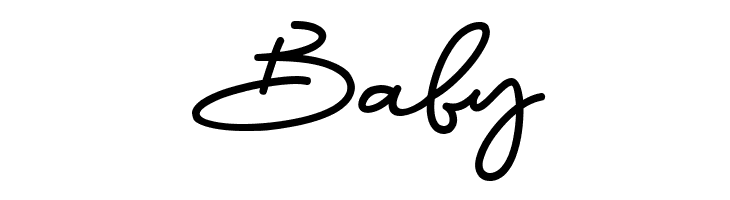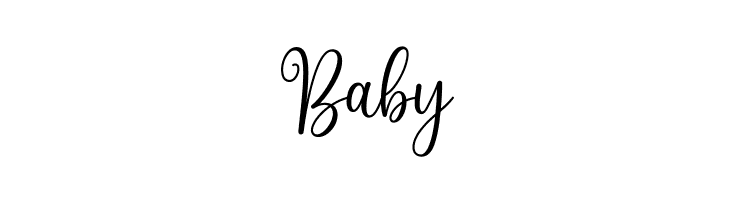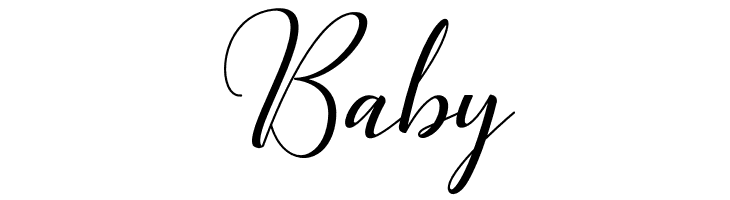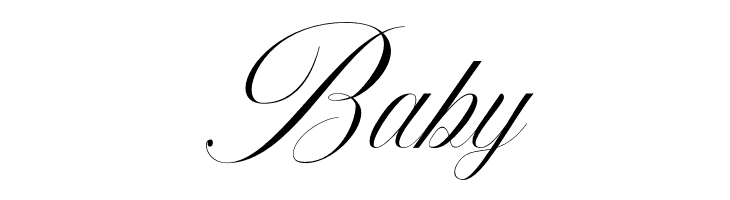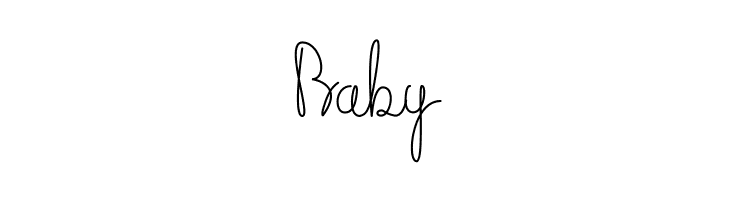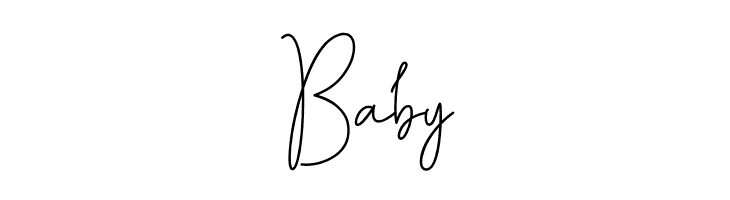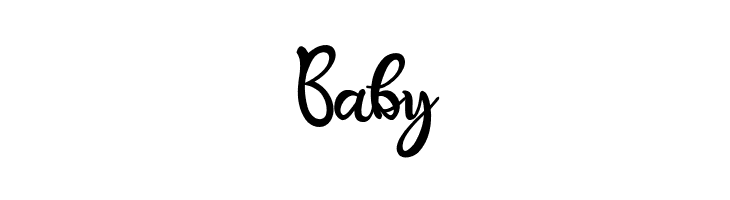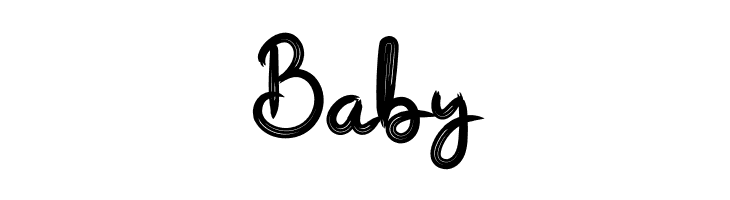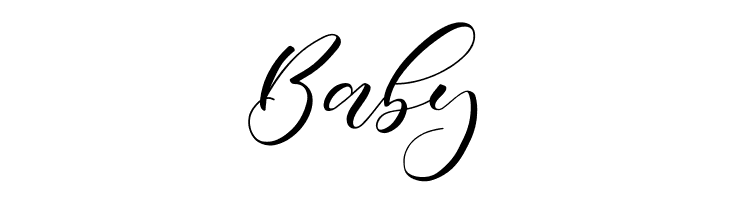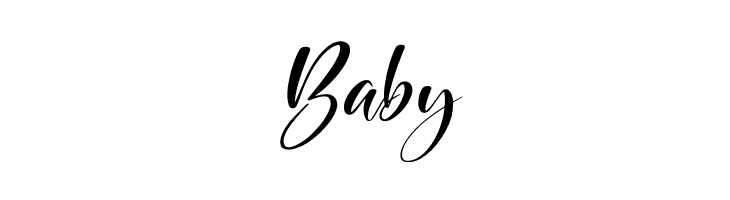
• BeautifulRegular
A bold, brush-style font with a playful and dynamic hand-drawn appearance.
• BeautifulScript-Light
A graceful script font with flowing, interconnected letters and elegant flourishes.
• BeautifulScript-Light
A graceful and elegant script font with flowing, interconnected letters.
• BeautifulScript-script
A sophisticated script font with flowing, interconnected characters and high contrast strokes.
• BeautifulThangs
A playful, casual handwritten font with irregular strokes and a slightly slanted appearance.
• Beautimy
An elegant, flowing script font with intricate swirls and loops.
• Beautimy
An elegant, flowing script font with ornate swirls and loops.
• Beautique Display Black
A bold, high-contrast serif display font with elegant and dramatic features.
• Beautique Display Black Italic
A bold, high-contrast italic font with an elegant and dynamic style.
• Beautique Display Bold
A bold, high-contrast serif font with elegant and sophisticated styling.
• Beautique Display Bold Italic
Elegant and bold italic serif font with a classic and sophisticated style.
• Beautique Display Condensed
A refined, high-contrast, condensed serif font with elegant, elongated letterforms.
A bold, high-contrast, condensed serif font with elegant serifs.
A sophisticated, condensed, and italicized font with high contrast and elegant style.
• Beautique Display Condensed Bold
A high-contrast, condensed serif font with elegant and sharp serifs.
A sophisticated, condensed bold italic font with high contrast and elegant style.
A sophisticated, condensed italic typeface with high contrast strokes.
Elegant, high-contrast, and condensed font with sharp serifs.
An elegant, condensed, light italic typeface with a modern and sophisticated style.
Elegant and sophisticated font with high contrast and condensed letterforms.
A refined, condensed, and italic serif font with medium contrast.
• Beautique Display Italic
• Beauty and the Beast
A bold, expressive handwritten font with a playful and artistic flair.